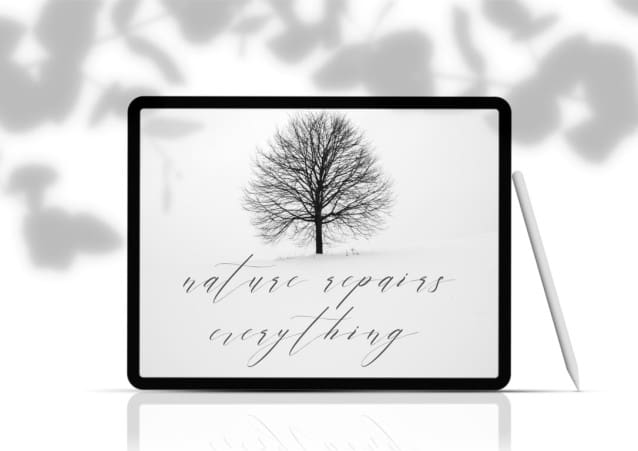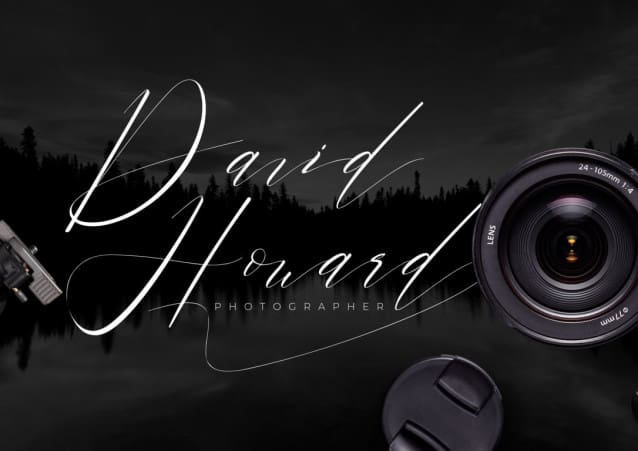
Restand Calligraphy Font
Restand Calligraphy Font, a beautiful and elegant calligraphy font. Perfect for creating exquisite logos, wedding stationery, websites, personal branding, and any project that calls for a handwritten and elegant touch. Let Restand add a touch of sophistication and grace to your designs, making them truly memorable.